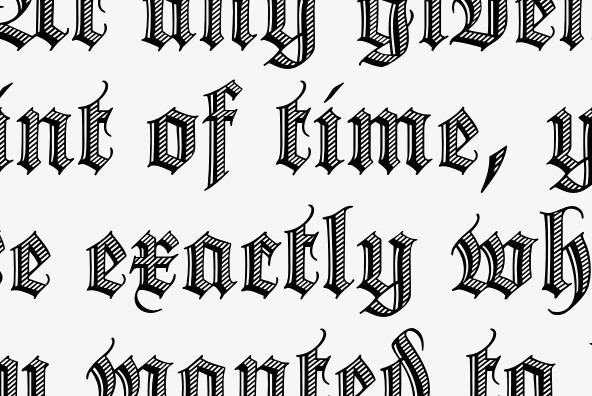
Zierfraktur
Foundry: RMU Typedesign
This highly stylish, engraved blackletter font was cut by Rudolf Koch between 1919 and 1921 for Klingspor in Offenbach on Main. It was then sold under the name Deutsche Zierschrift. I completely redrew and extended this font, and called it Zierfraktur. To take full advantage of this fine headline blackletter font, please use it from - at least - 18 points upward. This font contains a bunch of useful ligatures, and by typing ‘N’, ‘r’ and period you get an oldstyle numbersign.